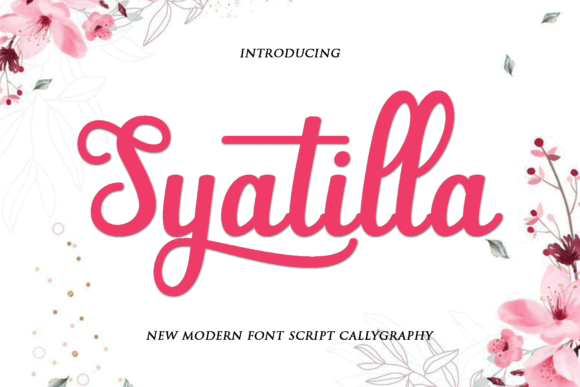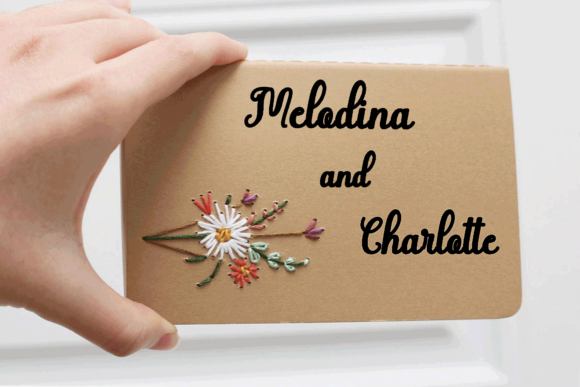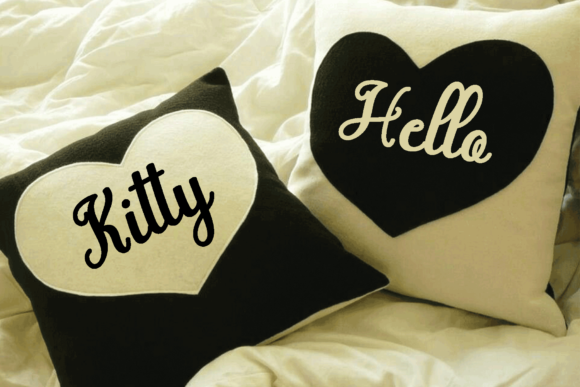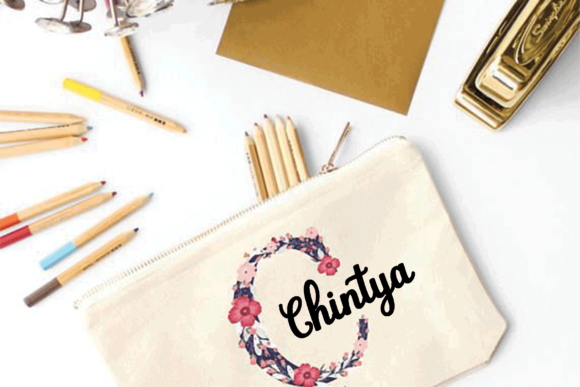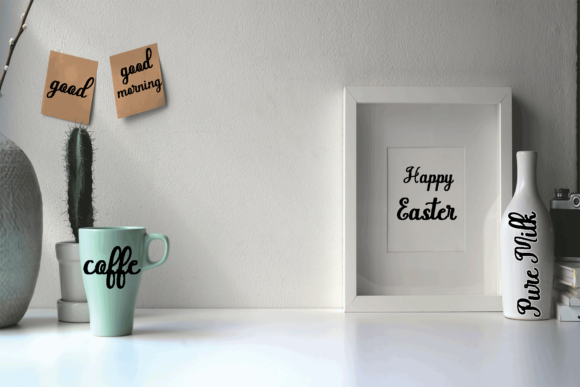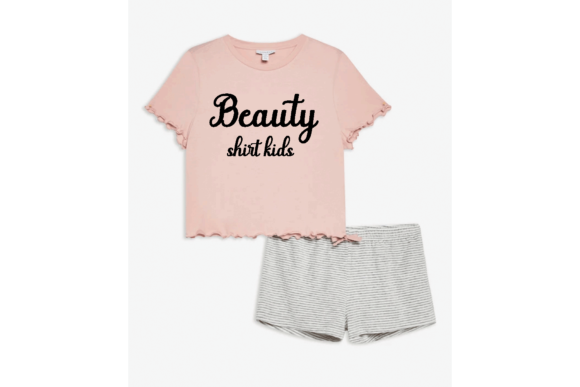
Syatilla Font
About Syatilla Font
Syatilla is a sweet, flowing and elegant handwritten font. It looks stunning on wedding invitations, thank you cards, quotes, greeting cards, logos, business cards and every other design which needs a handwritten touch.